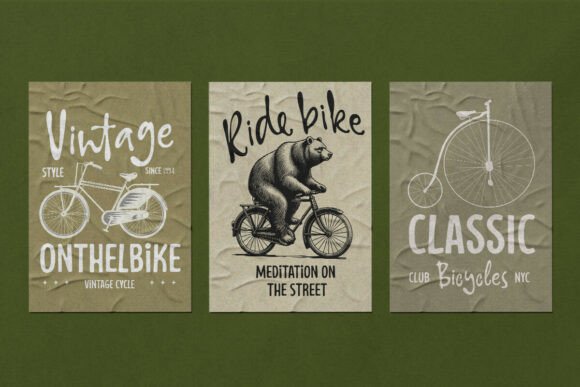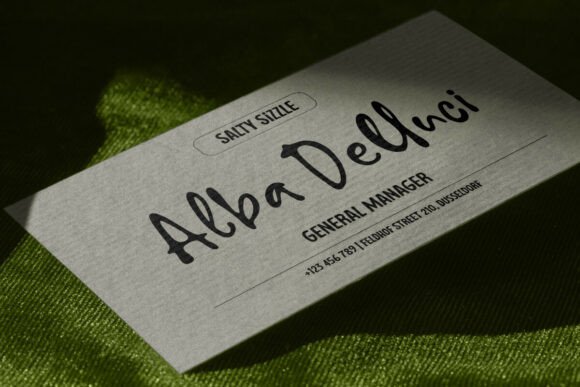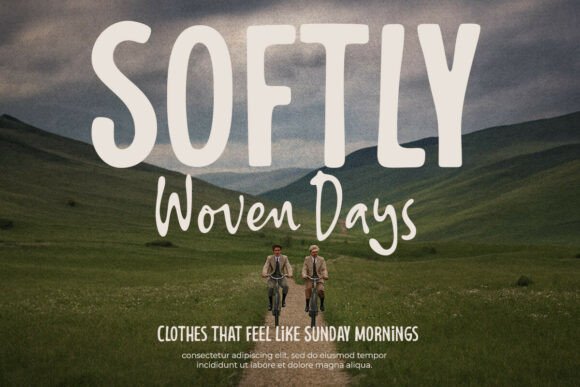
Introduction to Make Things Font
As you sit in front of your computer screen, staring at a blank canvas, you know that the perfect font can make all the difference. It’s that moment of clarity when the design starts to come together, and you can envision the final result. That’s where Make Things Font comes in – a game-changing duo typeface that offers the ultimate combination of clean modern structure and expressive handwritten style.
With Make Things Font, you gain the flexibility to create stunning typography with contrast, harmony, and visual interest. Whether you’re building a brand identity, crafting social media content, or designing elegant marketing materials, this versatile font duo provides the perfect balance for any design project. And the best part? It’s a valuable resource for designers, offering a high-quality, free download that can be easily integrated into your creative project.
So, let’s dive into the world of Make Things Font and explore its features, benefits, and usage. Get ready to elevate your design game and take your creative projects to the next level!
Key Features of Make Things Font
- High-quality design: This font is designed with precision and care, ensuring it meets the highest standards for typography in creative projects.
- Transparent background: Make Things Font features a transparent background, allowing for seamless integration into various design elements and backgrounds.
- High-resolution design: With a resolution of 300 DPI, Make Things Font is suitable for use in high-resolution designs, such as print materials and digital displays.
- Unique characteristics: This font features a distinctive, modern design that is perfect for use in creative projects, including branding, advertising, and editorial content.
- Perfect for design resource: Make Things Font is an excellent addition to any designer’s toolkit, offering a versatile and high-quality design resource for a variety of projects.
Honest Review: Make Things Font
I recently had the chance to work with the Make Things Font, and I must say it’s a fantastic addition to any designer’s toolkit. As a design resource, it offers a wide range of styles and weights that can elevate any creative project. One of the standout features of this font is its transparent background, which makes it perfect for designing on dark or complex backgrounds.
Here are some of the things that work well with the Make Things Font:
- ✨ High-quality design: The font is incredibly well-designed, with clean lines and a modern aesthetic.
- ✨ Versatile: The font is suitable for a wide range of creative projects, from logos to brochures.
- ⚠️ Limited customization options: While the font is well-designed, it can be a bit restrictive in terms of customization options.
- ⚠️ Not ideal for complex typography: Due to its simple design, the font may not be the best choice for projects that require intricate typography.
Overall, I’m really impressed with the Make Things Font. It’s a high-quality design resource that’s perfect for designers looking to add some creativity to their projects. With its transparent background and free download, it’s a must-have for any design toolkit.
Make Things Font is a high-quality design resource that offers a transparent background, perfect for creative projects. This font is available for free download, making it an ideal choice for designers and artists.
Tips for Getting the Most Out of Make Things Font
Use Make Things Font in combination with other design resources to create unique and eye-catching designs. Experiment with different font sizes, colors, and effects to add depth and visual interest to your project.